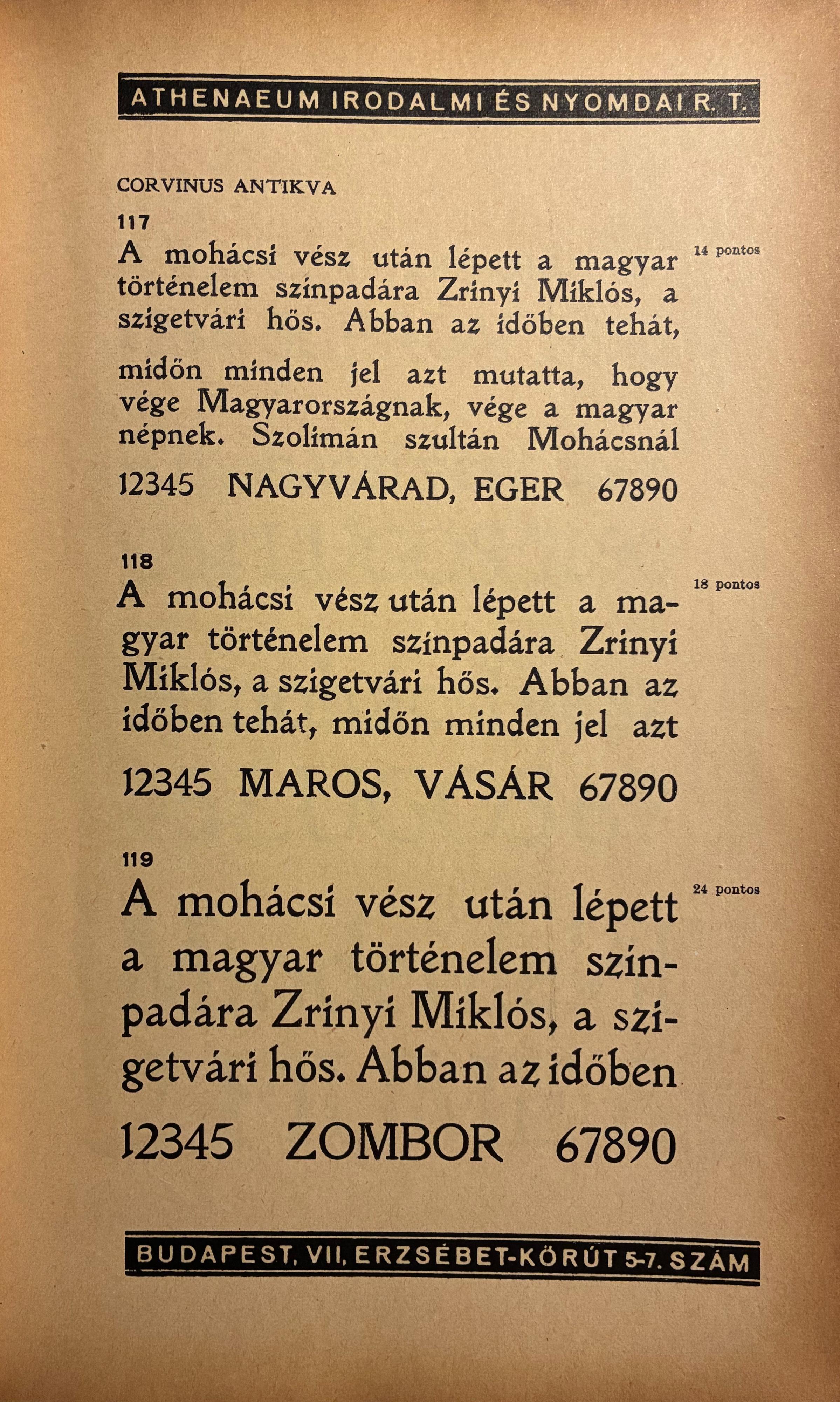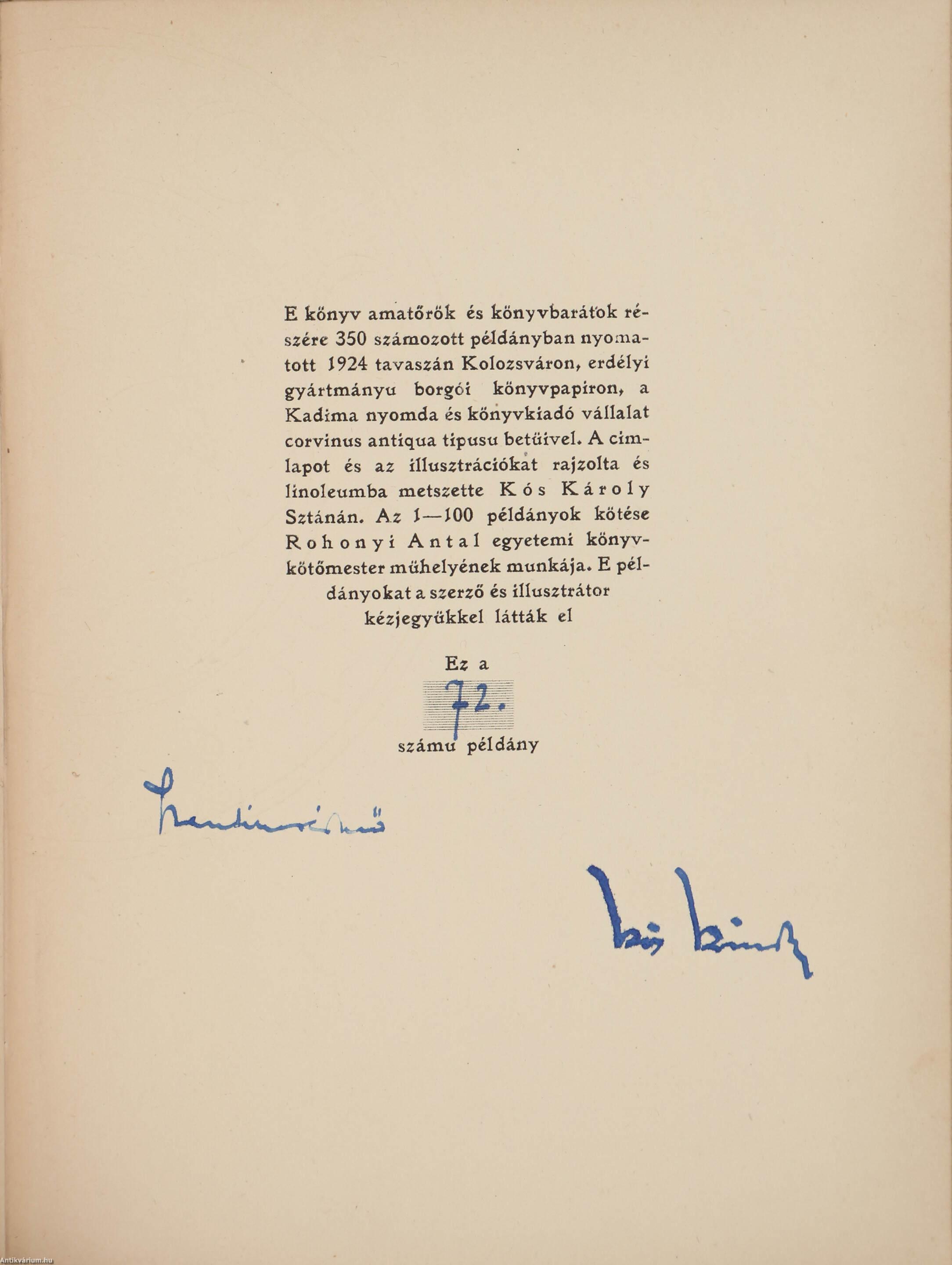
Early 20th c. serif (Mediäval?) of possibly German origin
Can you please help identify the serif shown in the attached samples? It was marketed in Hungary under the name "Corvinus Antikva" but I have a suspicion that in fact it's a German Mediävalschrift I just can't seem to find. Thanks in advance and sorry for using English.
I would have ended up with a Jenson. William Morris released it as Golden Type, which Joseph Warren Phinney published as a commercial version under the name “Jenson Oldstyle.” Today, for example, it is available from myfonts as "Phinney Jenson ML".